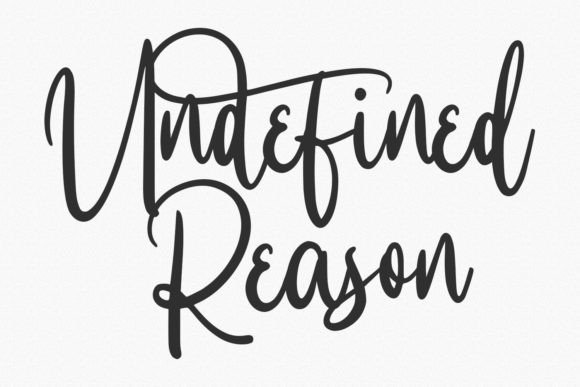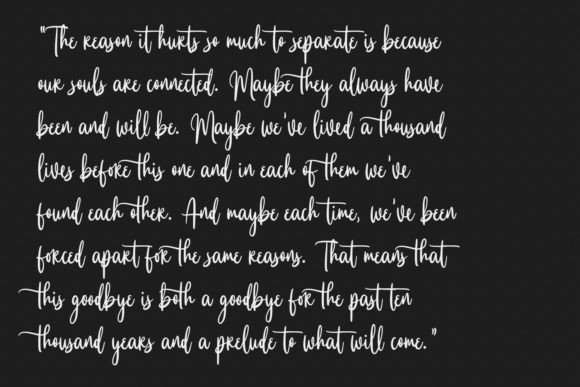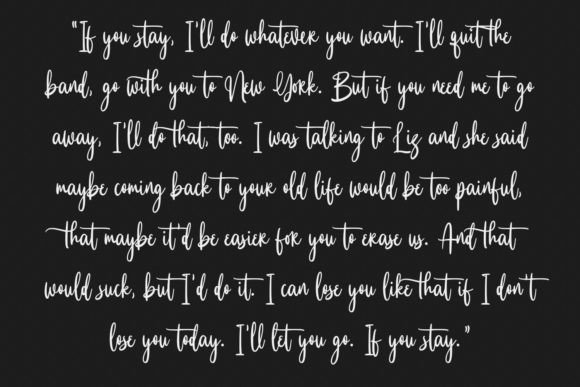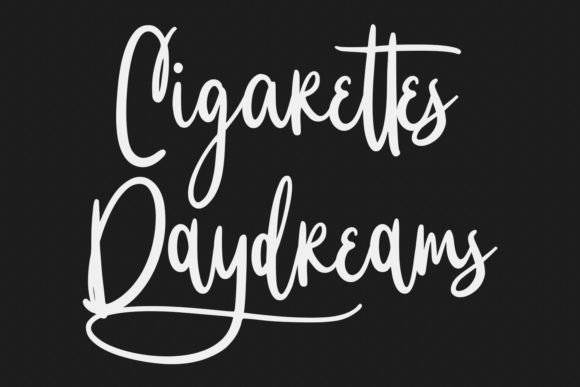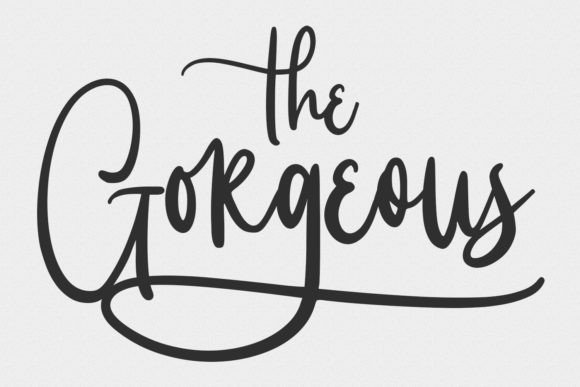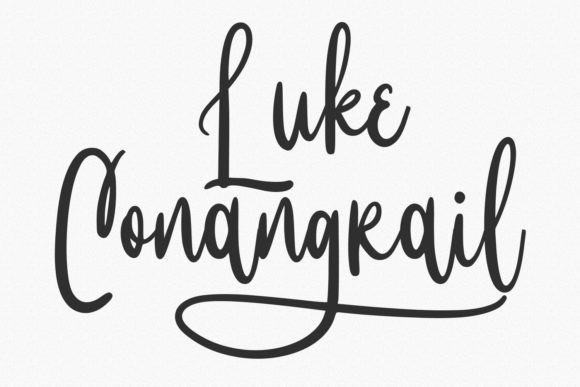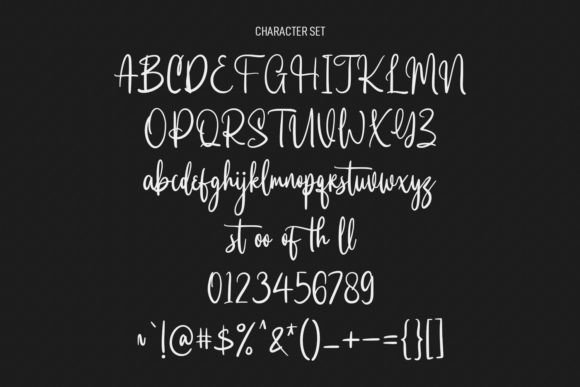
Everblast Font
Everblast Font : A Contemporary Script Font for Creative Designs
Introducing Everblast – a contemporary script font that combines light contrast strokes with playful characters. This versatile typeface is perfect for a wide range of design applications, from logo design to social media content, movies, books, and both short and long text. With its unique features, Everblast is your key to creating stunning and engaging designs.
Key Features of Everblast Font
• Modern Script Style: Offers a perfect blend of elegance and playfulness.
• Light Contrast Strokes: Adds sophistication to your typography.
• Ligatures and Alternates: Provides extra creative possibilities for customization.
Perfect for Multiple Design Projects
Everblast’s adaptability makes it an excellent choice for:
• Logo Design: Ideal for brands wanting to convey a modern and creative image.
• Social Media Posts: Makes captions and graphics more engaging and memorable.
• Movies and Books: Suitable for titles, headings, and display text.
• Short and Long Text Applications: Ensures readability while maintaining style.
Enhancing Your Creative Vision
One of the standout features of Everblast is its modern script style. The light contrast strokes add a touch of sophistication, while the playful character injects energy and creativity into your designs. Imagine using Everblast to create enchanting greeting cards or captivating product packaging that truly stands out.
Crafting with Everblast
The inclusion of ligatures and alternates in Everblast allows you to customize and personalize your text. Whether you’re working on branding materials or social media posts, these features give you the tools to make your work unique. Its versatility allows you to create logos that range from elegant to playful, ensuring that your designs resonate with your audience.
Digital Design Applications
In digital content creation, Everblast enhances the overall aesthetics of your text. Its fun and contemporary style captures attention, making it perfect for social media graphics or website headlines. The font’s unique character ensures that your messages are visually appealing and leave a lasting impression.
In summary, Everblast is a contemporary script font that combines light contrast strokes, playful characters, ligatures, and alternates to offer a versatile typographic solution. Whether you’re designing logos, social media content, movies, or books, Everblast empowers you to create stunning work that captivates your audience. Embrace the charm of Everblast today! Incorporate this beautiful font into your design toolkit and watch as it transforms your ideas into engaging works of art. With Everblast at your disposal, you can create captivating designs that truly shine!